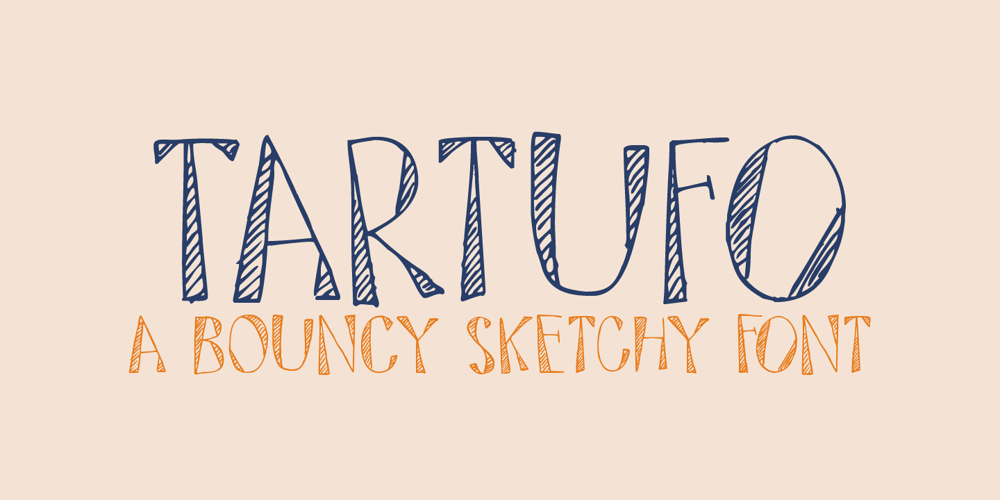
Tartufo
Tartufo font
Tartufo Font Family was designed by David Kerkhoff and published by Hanoded. Tartufo contains 1 styles and family package options. A Tartufo is a truffle in Italian. I have to admit, I have never eaten one, so I couldn’t really tell you if they’re any good. I suppose they are, but you’ll have to find that out for yourselves! Tartufo font is a bit of a weird font. It was hand made with a rollerball pen on some very expensive French paper. As I was drawing each glyph, I figured I might as well include Cyrillic and Greek. Tartufo is not a text font – I’d use it for packaging, posters, book covers and T-shirts. Comes with a whole bunch of diacritics!